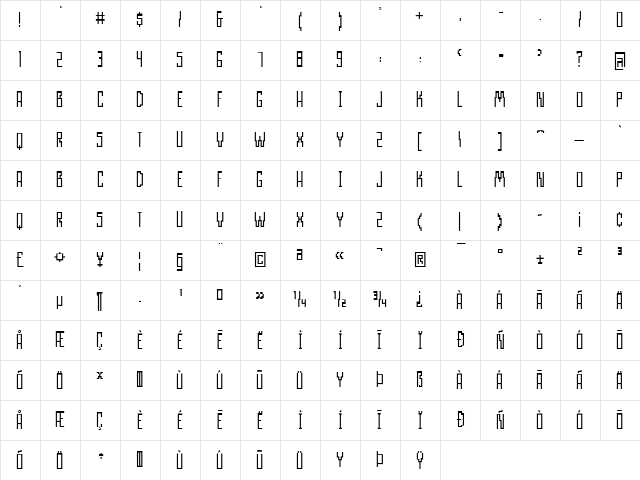
AIRWAVE 1 Regular Free Font
AIRWAVE 1 Regular
Design Context for AIRWAVE 1
AIRWAVE 1 is a composed and adaptable typeface that performs quietly and consistently across a wide range of design contexts.
Pro Tip: Use AIRWAVE 1 in both headline and body roles to test its range before committing to a single application.